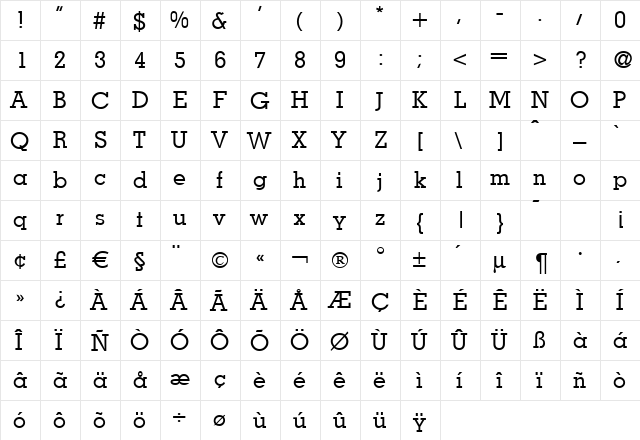
Mesa Regular
Design Context for Mesa Typeface
Mesa offers clean, dependable letterforms without strong stylistic allegiance, making it a practical choice for designers who need flexibility.